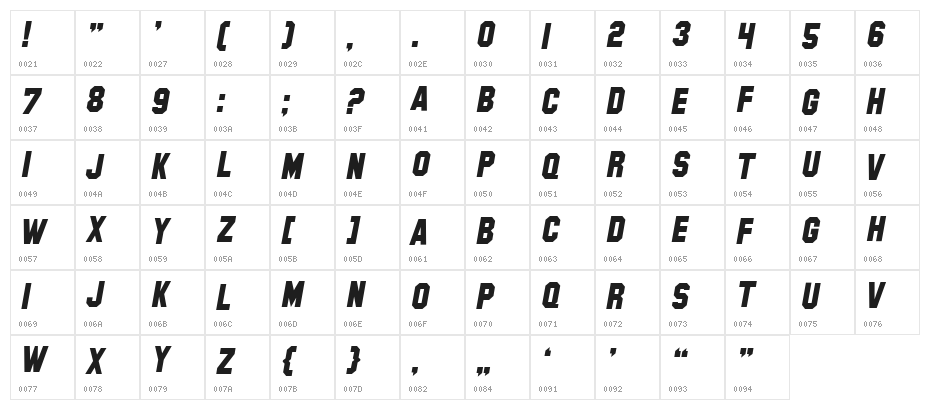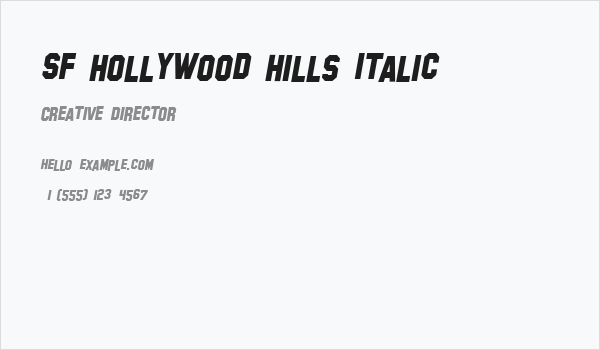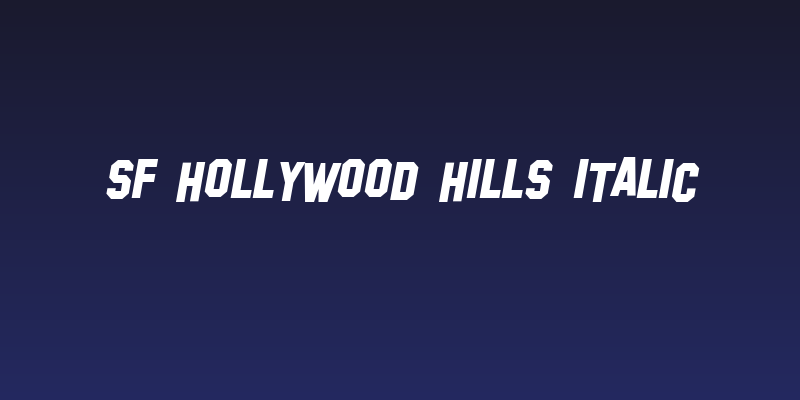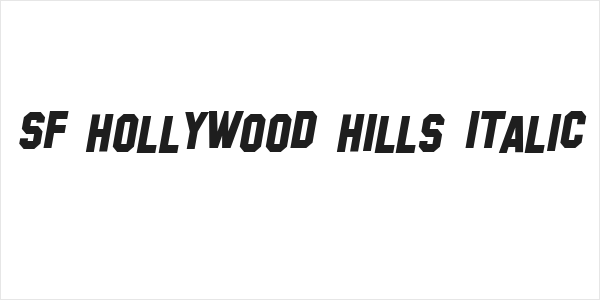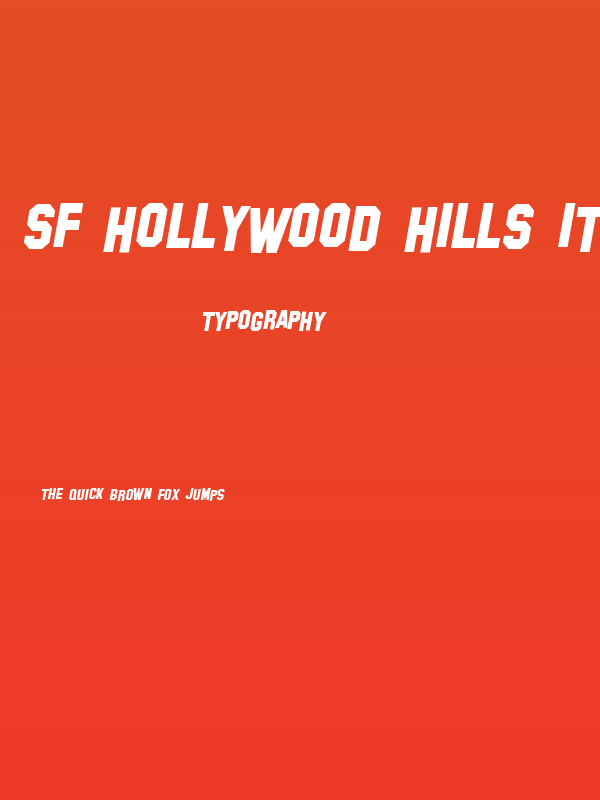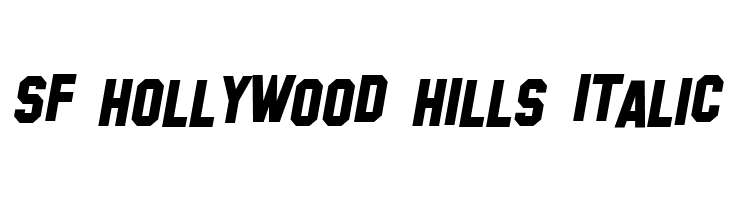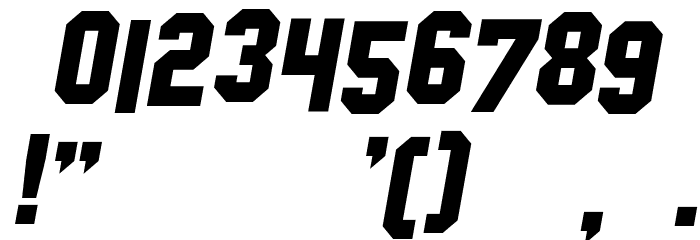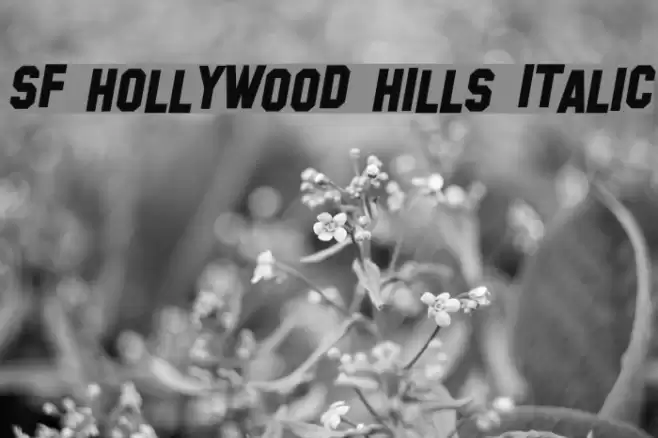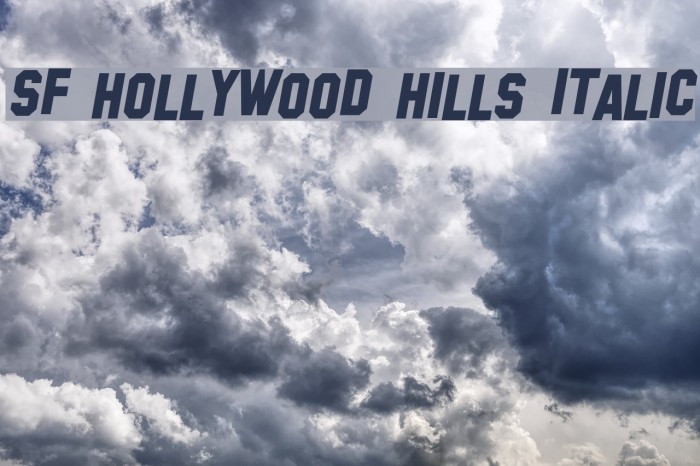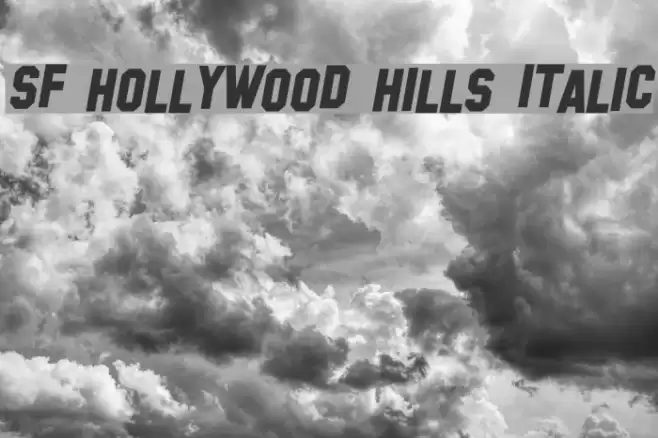
SF Hollywood Hills Italic Font
SF Hollywood Hills Italic Description
This font features a bold and dynamic style with a distinct italic slant, giving it a sense of motion and energy. The characters are designed with sharp angles and clean lines, creating a modern and impactful appearance. The uppercase and lowercase letters maintain a consistent geometric structure, while the numbers and special characters complement the overall design. This font is ideal for projects that require a strong visual presence and a contemporary feel.
| Proposed Projects | Ideal for movie posters, sports branding, dynamic logos, and modern advertising campaigns. |